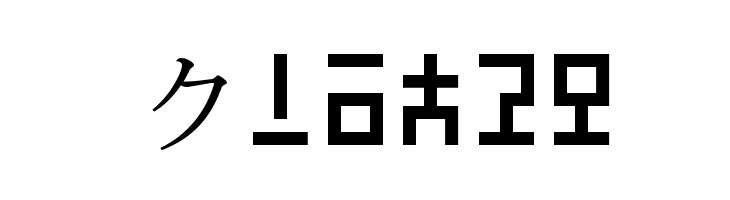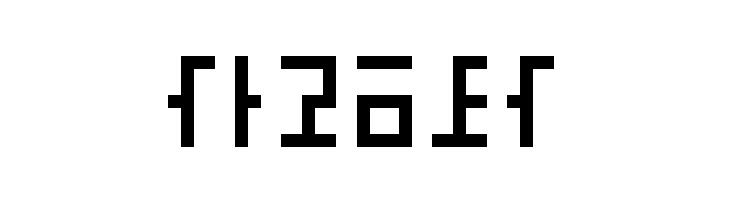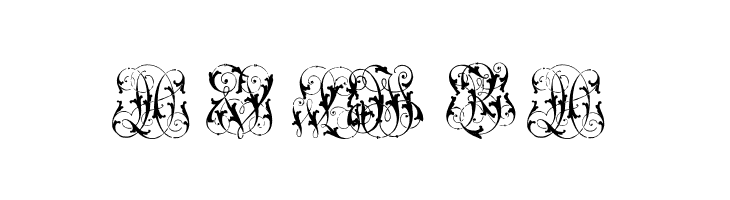
A bold, geometric font inspired by traditional Asian calligraphy, enclosed in rectangular frames.
A playful, school-themed decorative font with characters resembling educational items.
A rugged, hand-drawn font with bold, textured characters and an adventurous feel.
A decorative, ancient script-inspired font with sharp, angular lines and geometric shapes.
A decorative, geometric font inspired by fictional runes, ideal for fantasy themes.
An intricate, decorative script with elaborate swirls and flourishes.
Abstract pattern with lines and circles resembling a coded language.